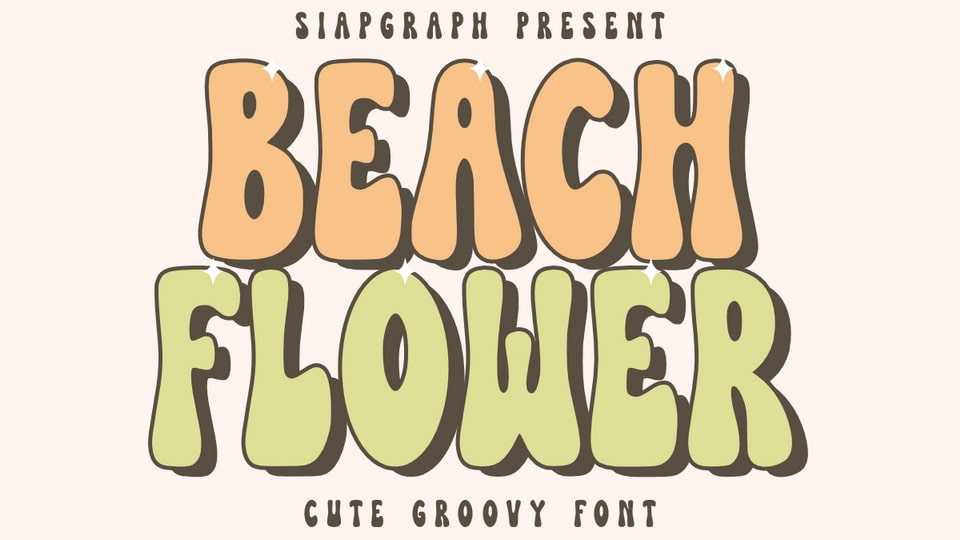
Download Beach Flower font, a cute and groovy bubble typeface with a playful retro vibe, featuring rounded, thick, and bouncy letterforms.
Designer: SiapGraph